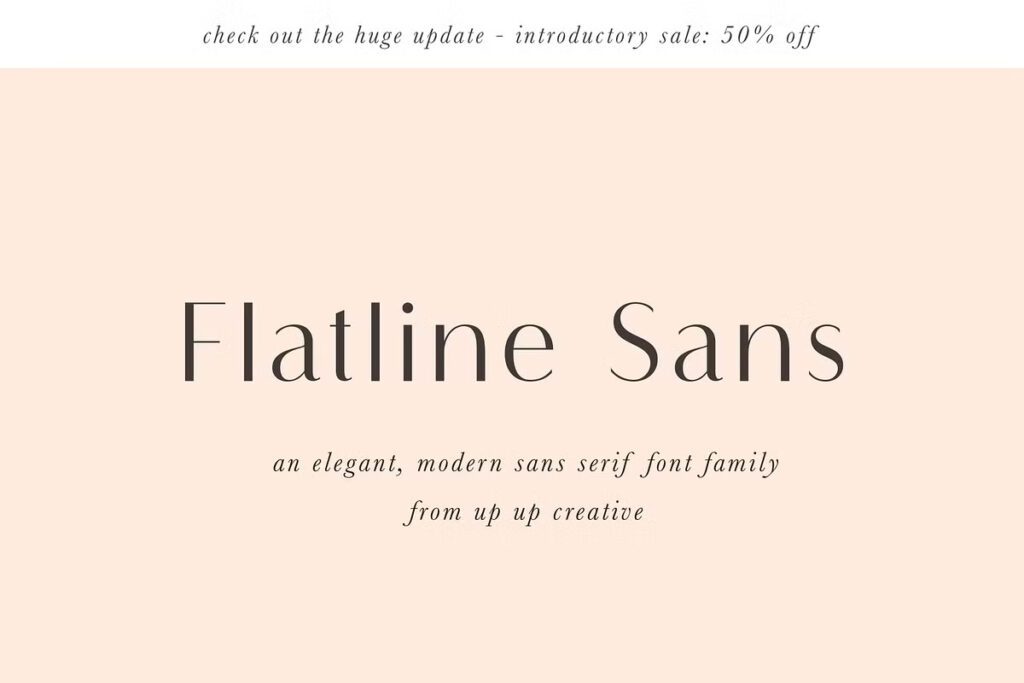
Flatline Sans Complete specimen and verified specs
- Styles: 6 (Bold, Bold-Italic, Regular, Regular-Italic, SemiBold, SemiBold-Italic)
- Glyphs: 439
- Language support: Basic Latin (English), Western European
- OpenType features: standard ligatures, discretionary ligatures, kerning, old-style figures, lining figures, tabular figures, fractions
- Designer: Up Up Creative
Design and character
Flatline Sans belongs to a small group of sans serifs with real stroke contrast. In the specimens rendered from the licensed files, vertical stems are heavy while joins and curves thin out to near-hairlines: the arches of n and m pinch where they meet the stem, the top of the a is a fine line, and the crossbar of the e is barely there. Stroke ends are cut flat, and the effect is closer to a fashion-magazine headline than a UI sans.
A few letters give it its personality. The M has splayed outer strokes, the Q ends in a long, nearly flat tail, the J drops below the baseline, and the lowercase g is single-storey with an open hook. Ascenders are tall next to a modest x-height, which gives words an airy top line. Up Up Creative describes the family as high-contrast and aimed at headlines, editorial layouts, advertising, luxury logos and wedding invitations. That matches the specimen: the contrast looks deliberate at large sizes, while at text sizes the hairlines get fragile.
The family first appeared in 2019, and the foundry describes a major 2021 update that expanded it to eight weights. The copy we inspected predates that update. It contains six styles (Regular, SemiBold and Bold, each with an italic) at version 1.000, with 439 glyphs in the Regular, and the specimen and specs on this page come from those files. If you buy the Flatline Sans Complete font today, you get the larger 16-font family.
Language support and OpenType features
OpenType features in the files we inspected:
- Standard ligatures: pairs such as fi and fl join into one shape automatically in most modern apps.
- Old-style, lining and tabular figures: old-style numbers rise and drop like lowercase letters inside running text, lining numbers sit at cap height, and tabular numbers share one width so columns of prices line up.
- Fractions: turns 1/2 into a proper stacked fraction when switched on.
Who designed Flatline Sans?